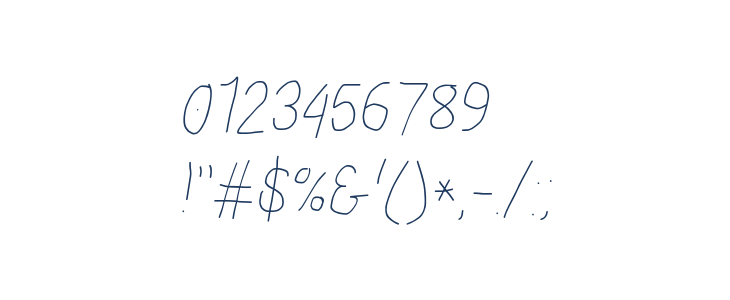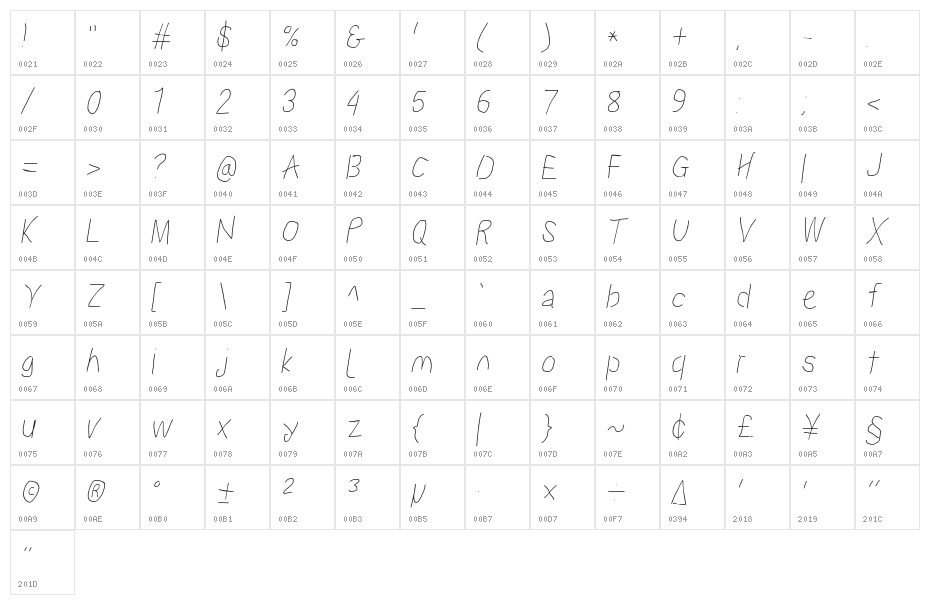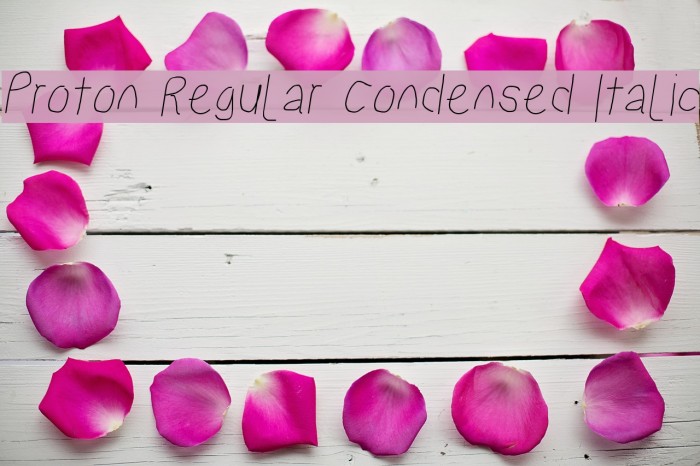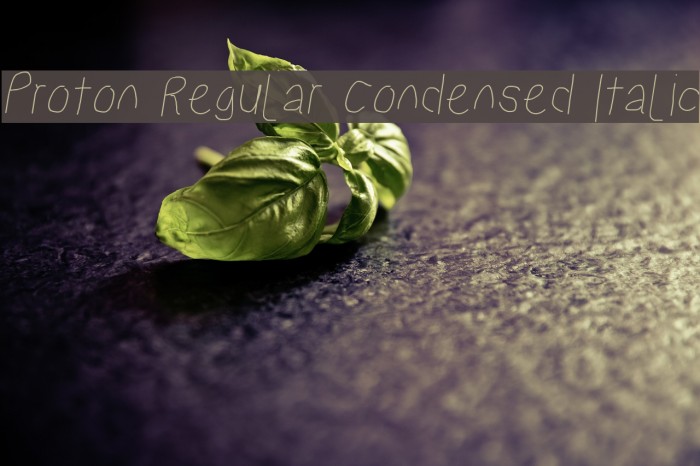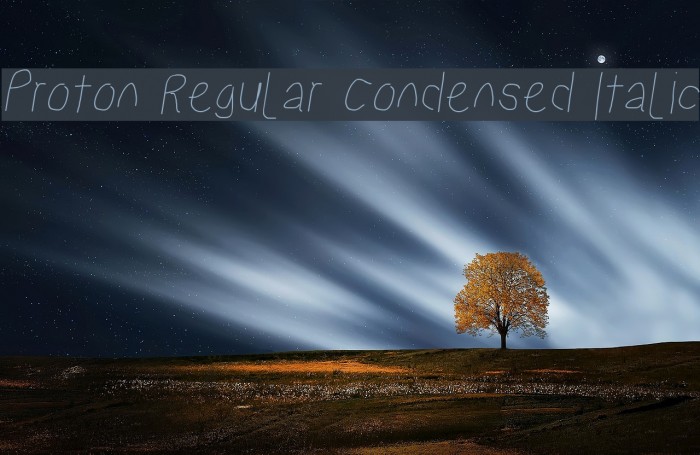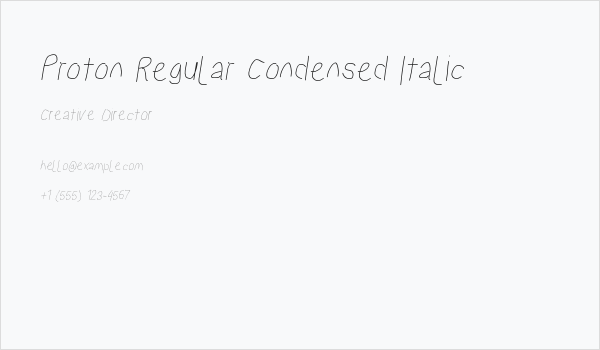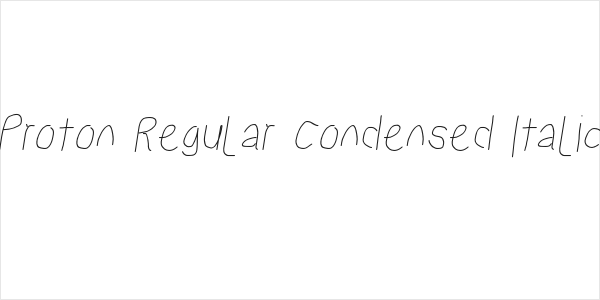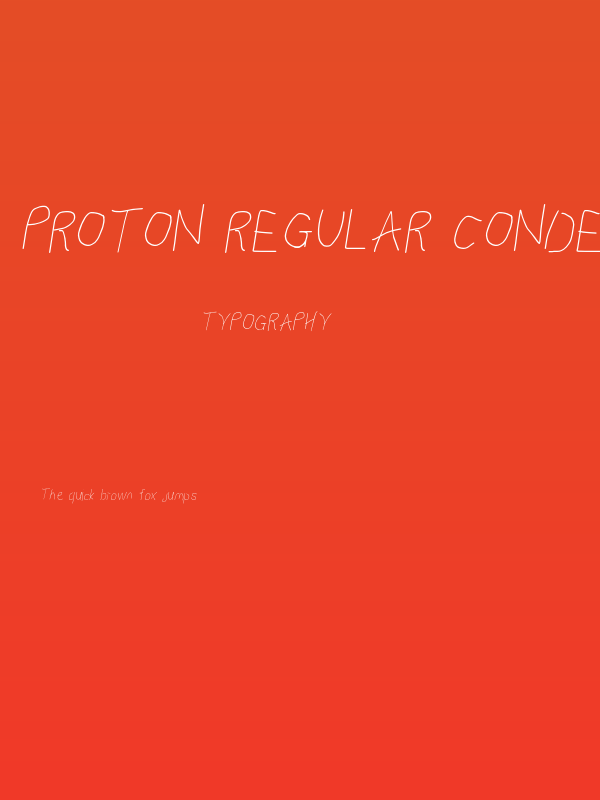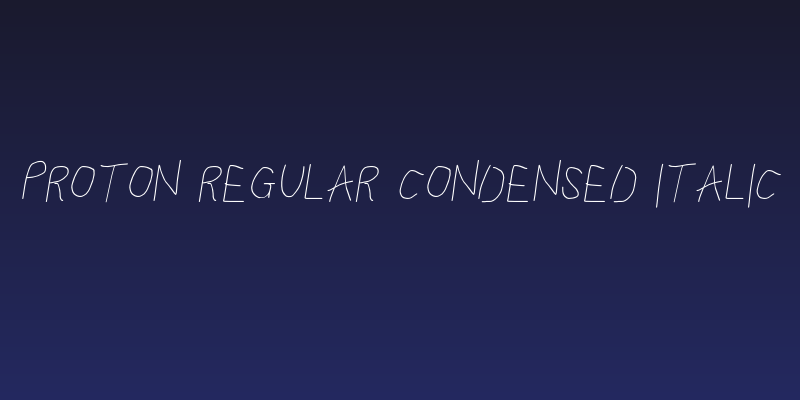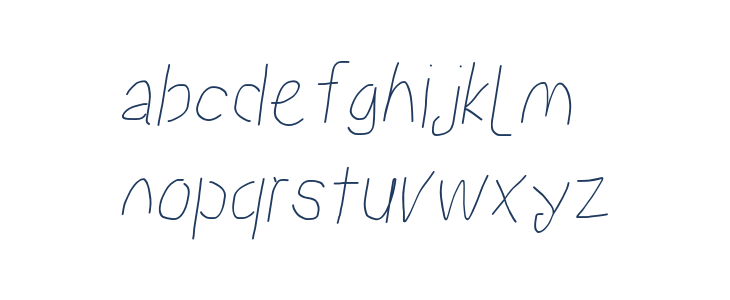
Proton Regular Condensed Italic Font
Proton Regular Condensed Italic Description
This font features a sleek, modern design with a condensed and italicized style. The characters are elongated and slightly slanted, giving a sense of motion and fluidity. The strokes are consistent in width, providing a uniform appearance across all characters. The uppercase and lowercase letters maintain a cohesive look, with rounded edges and a clean finish. The numerals are clear and easy to read, matching the overall aesthetic of the font. Special characters are well-integrated, ensuring versatility in various design applications.